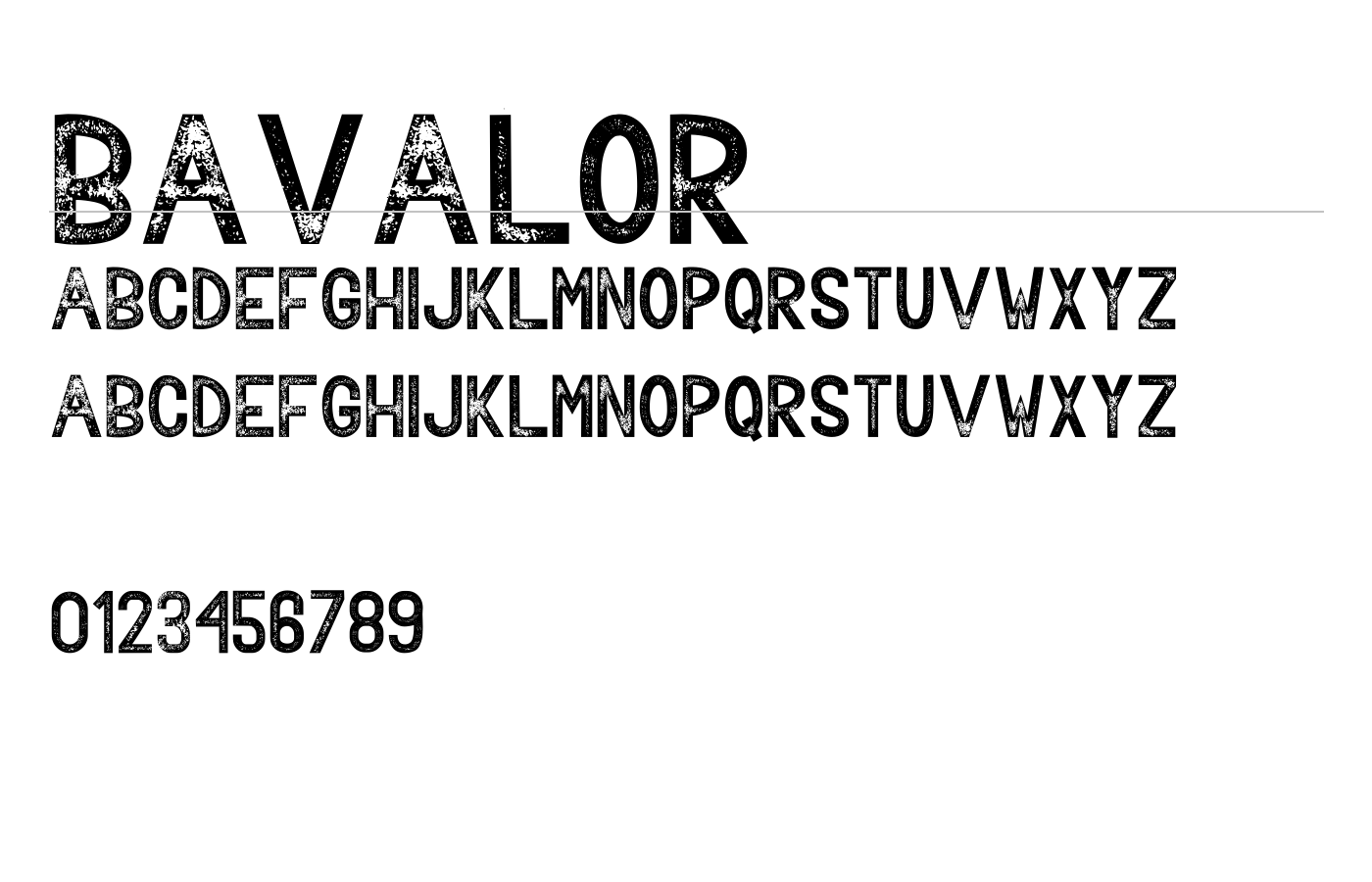
Bavalor is a bold, condensed sans serif font with a distinctive distressed texture that gives it a gritty, rugged character. Its tall, narrow letterforms and uniform stroke weight make it strong and impactful, perfect for creating a vintage or industrial feel. This font works well for headlines, posters, and branding that seeks a bold, edgy, and urban aesthetic.
Bavalor Font